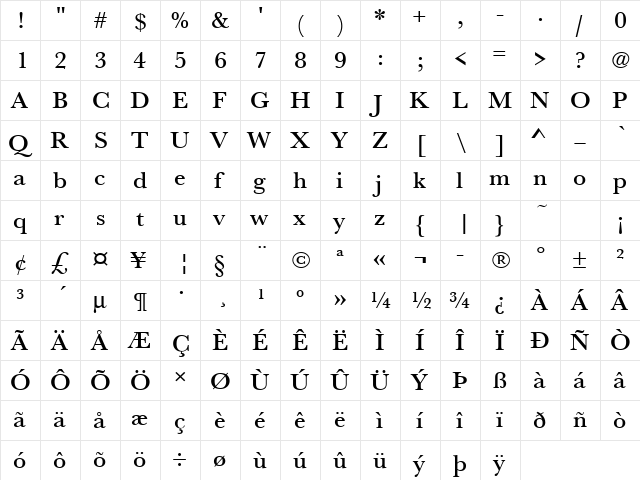
URWBaskerTMedWid Regular
Design Context for URWBaskerTMedWid Typeface
URWBaskerTMedWid offers clean, dependable letterforms without strong stylistic allegiance, making it a practical choice for designers who need flexibility.